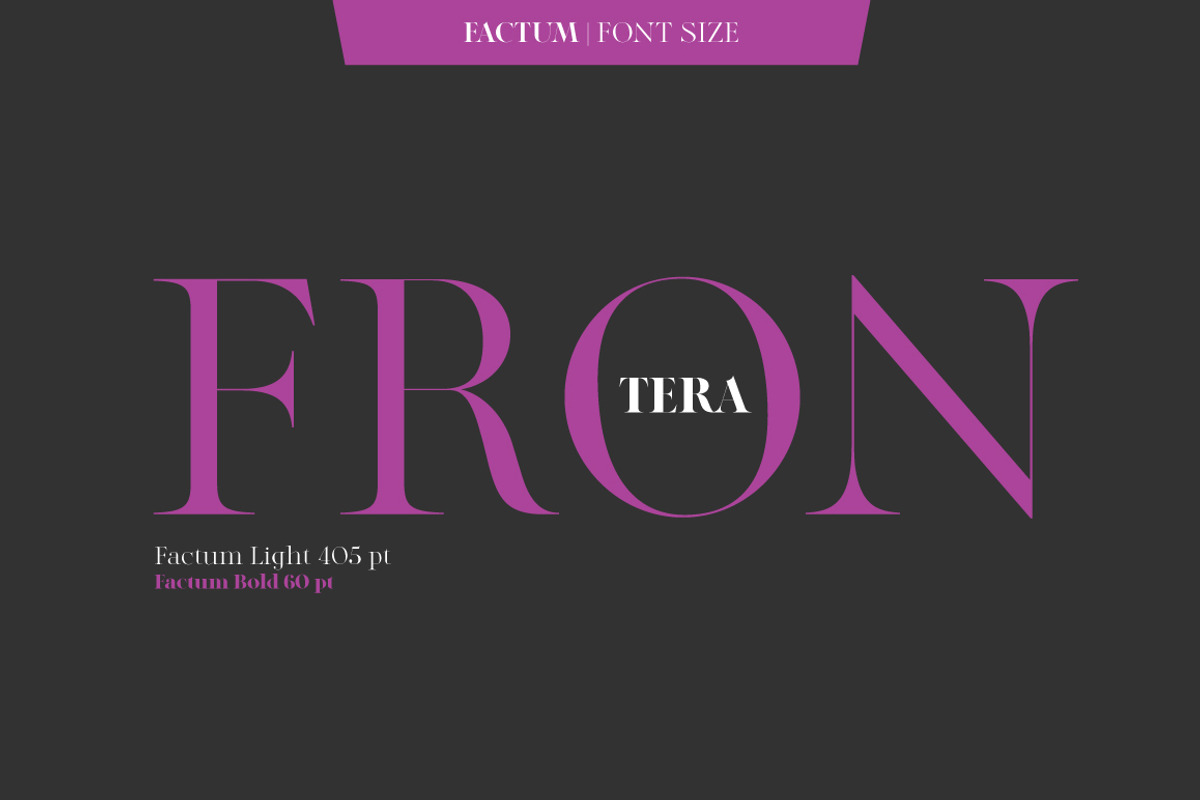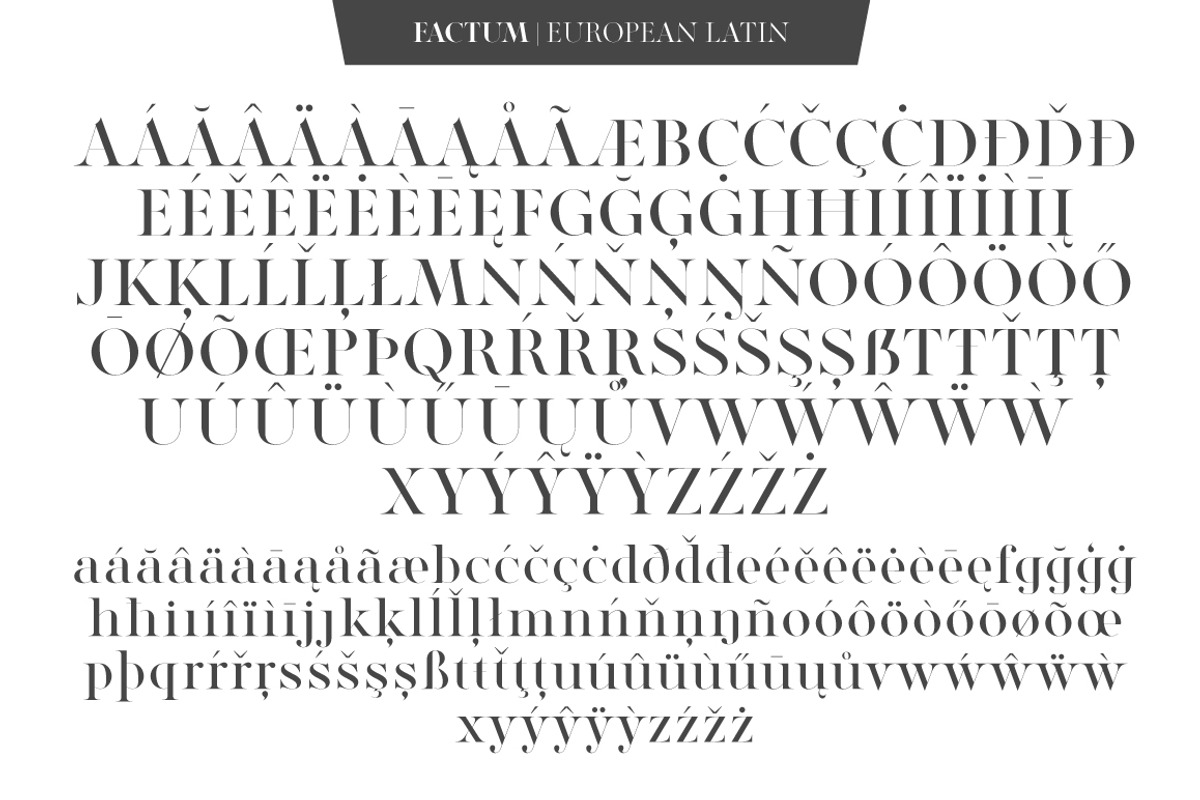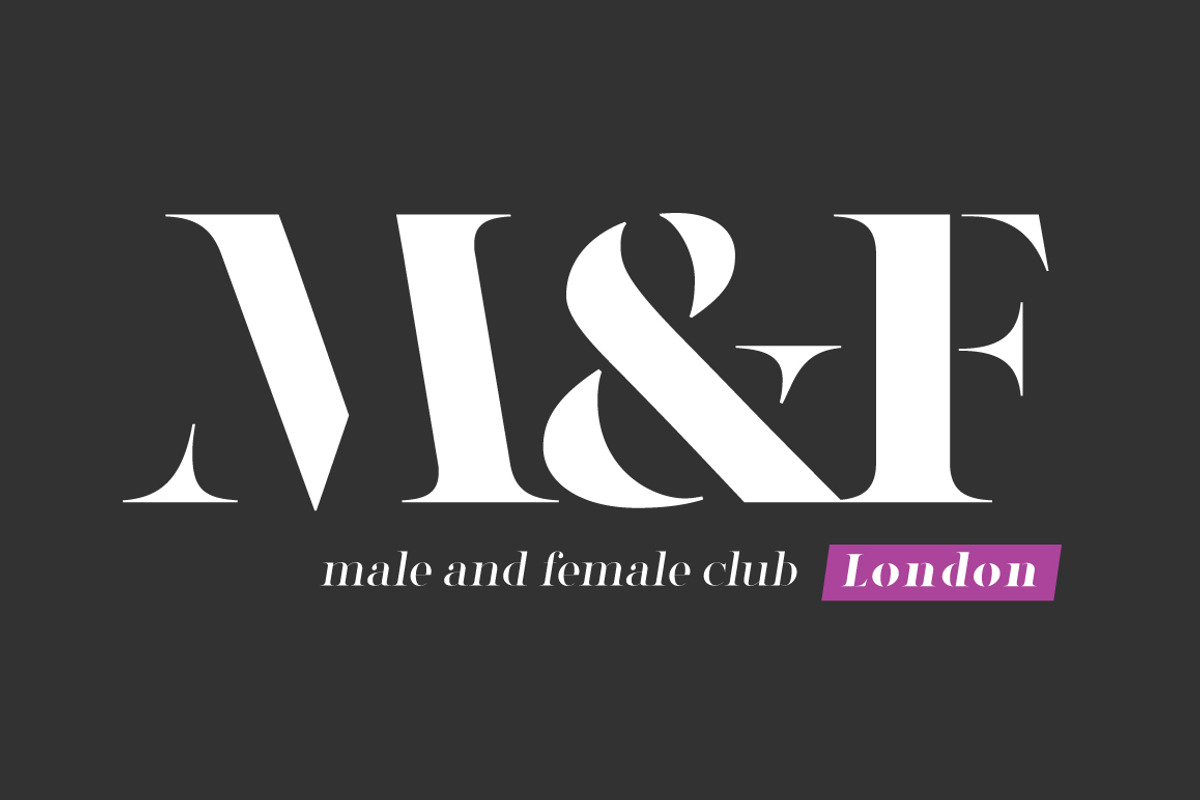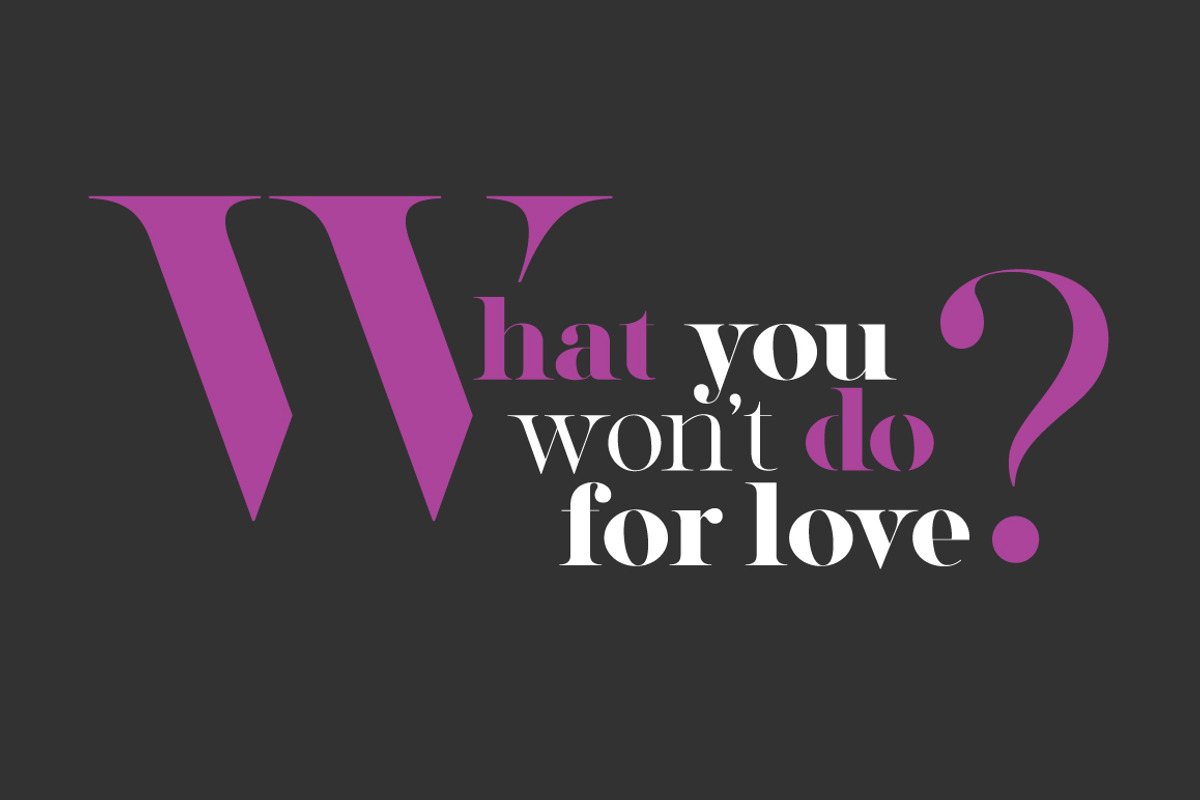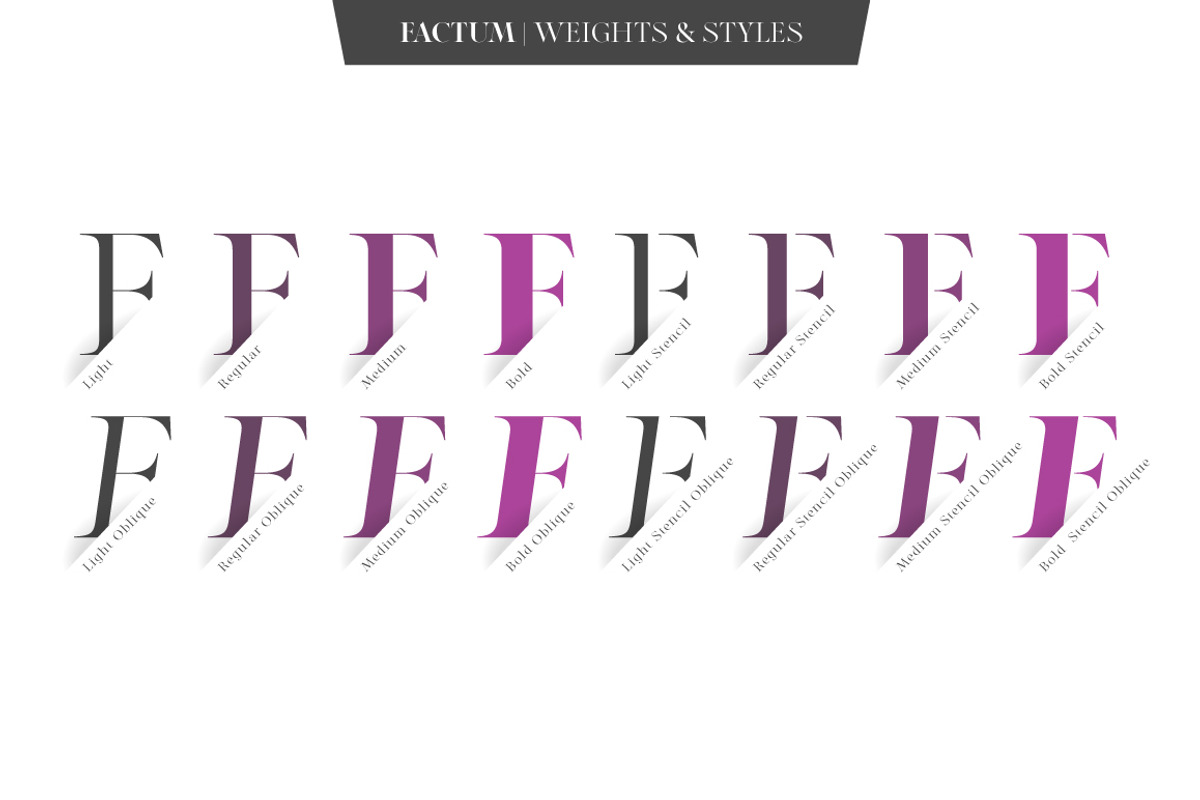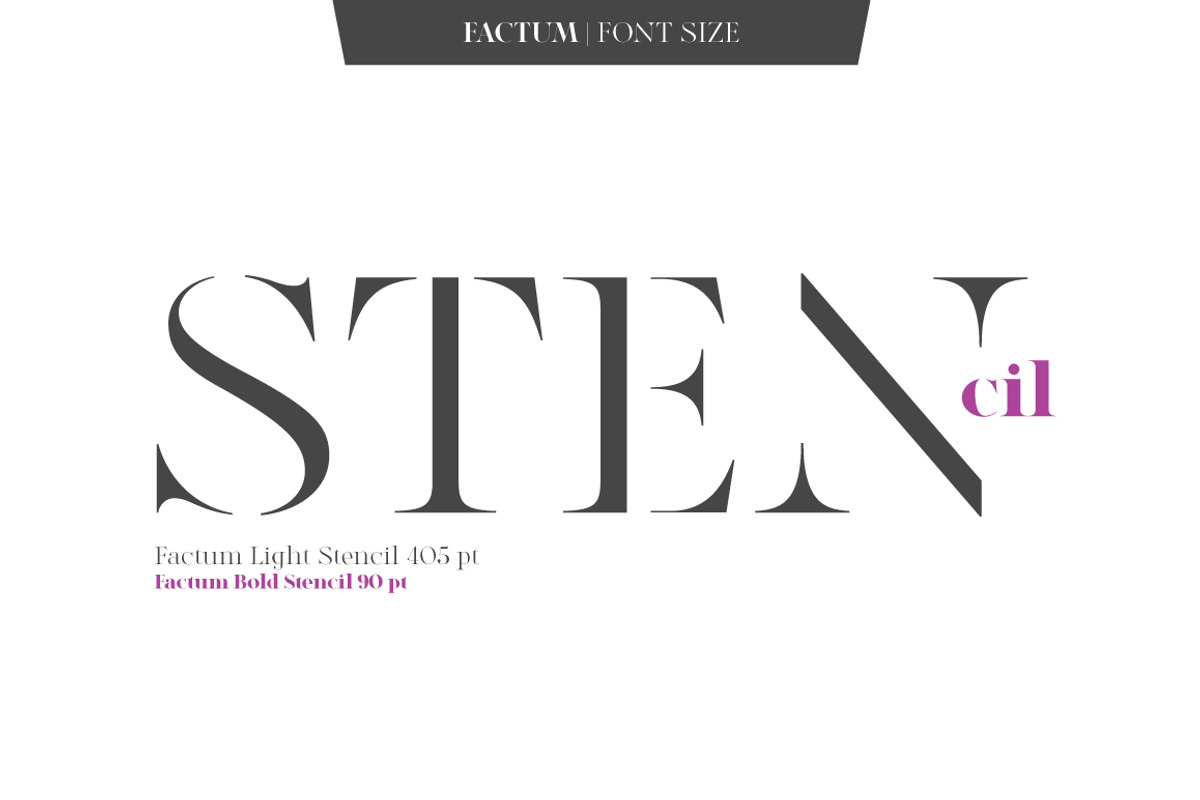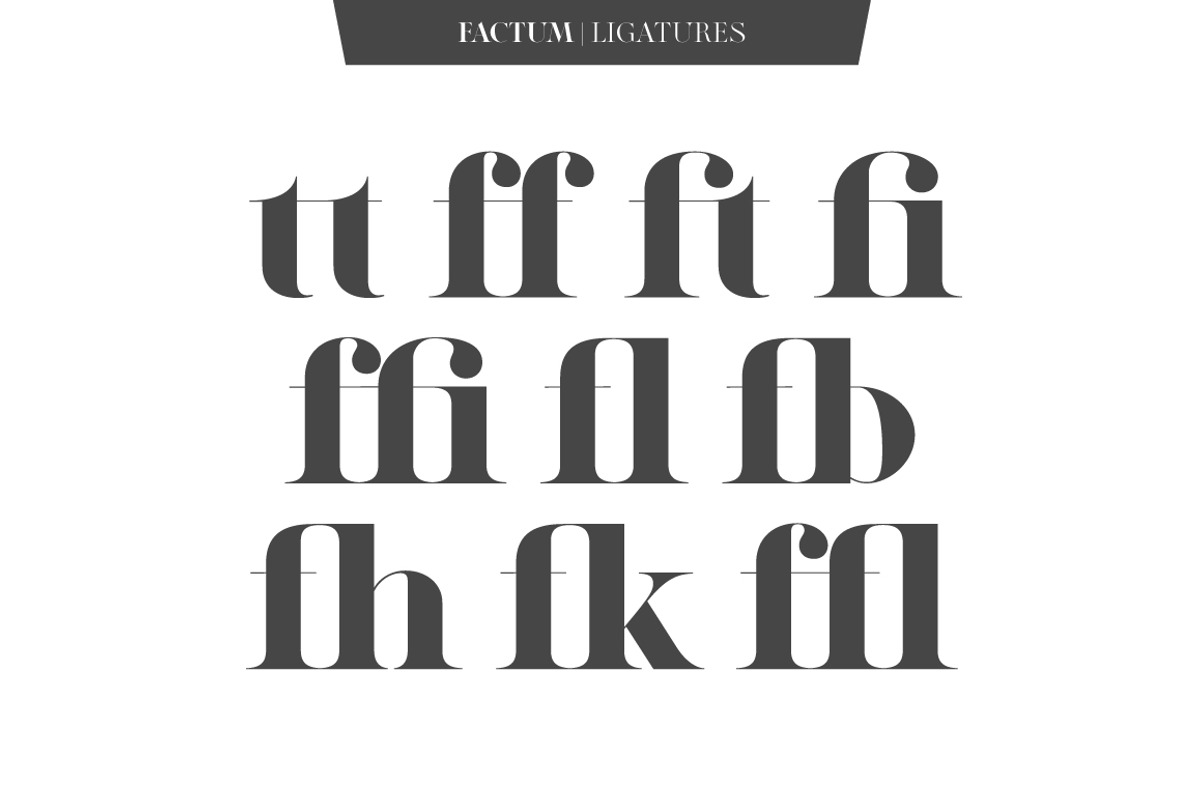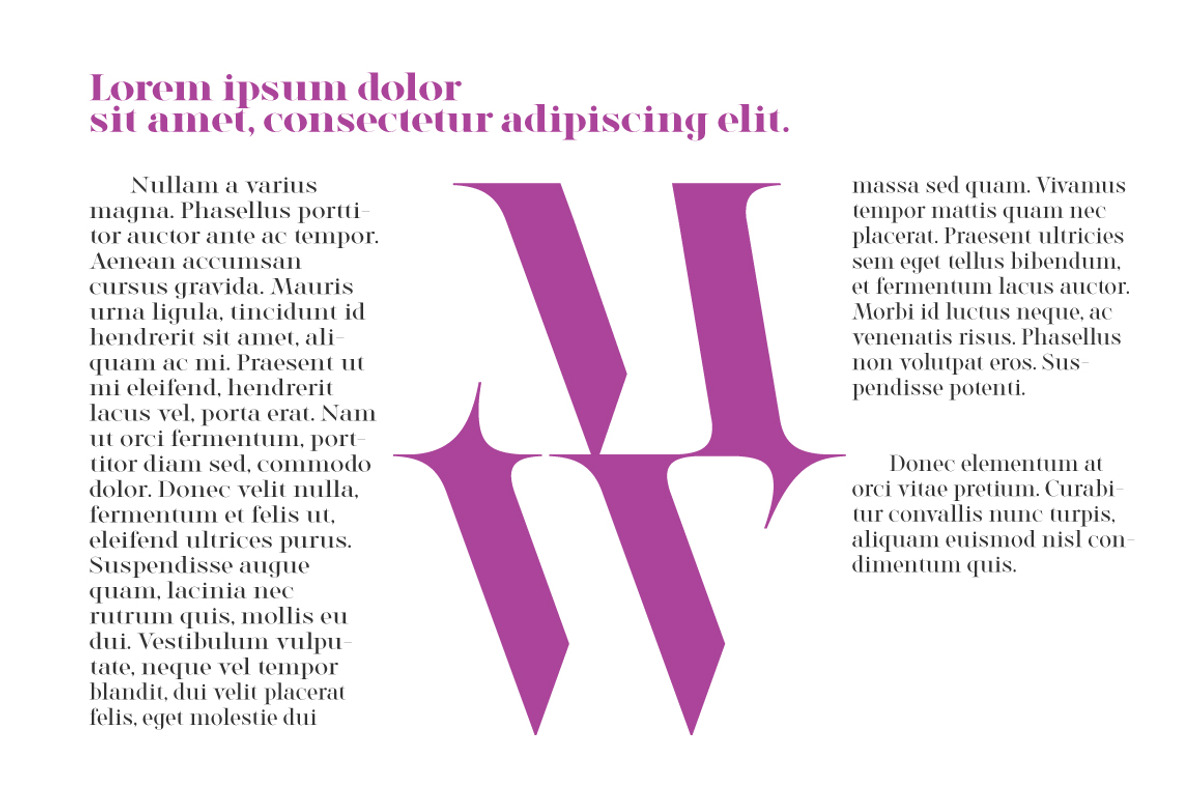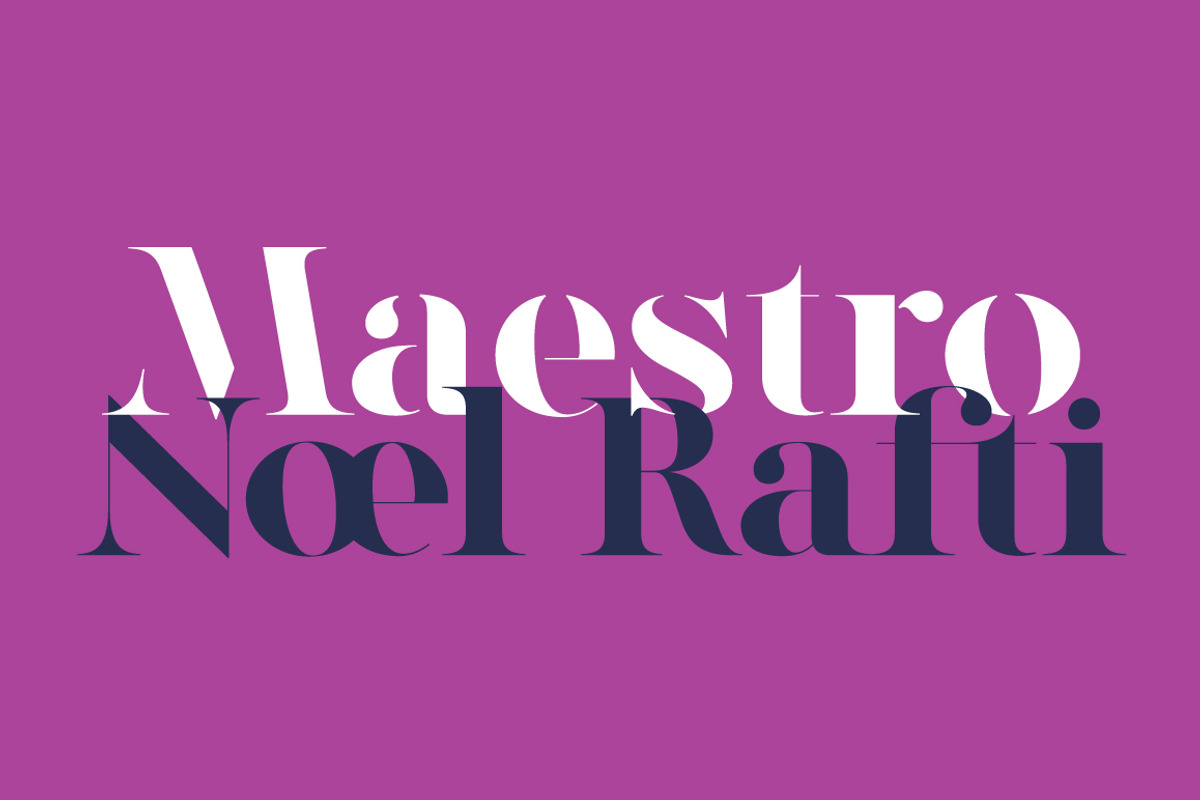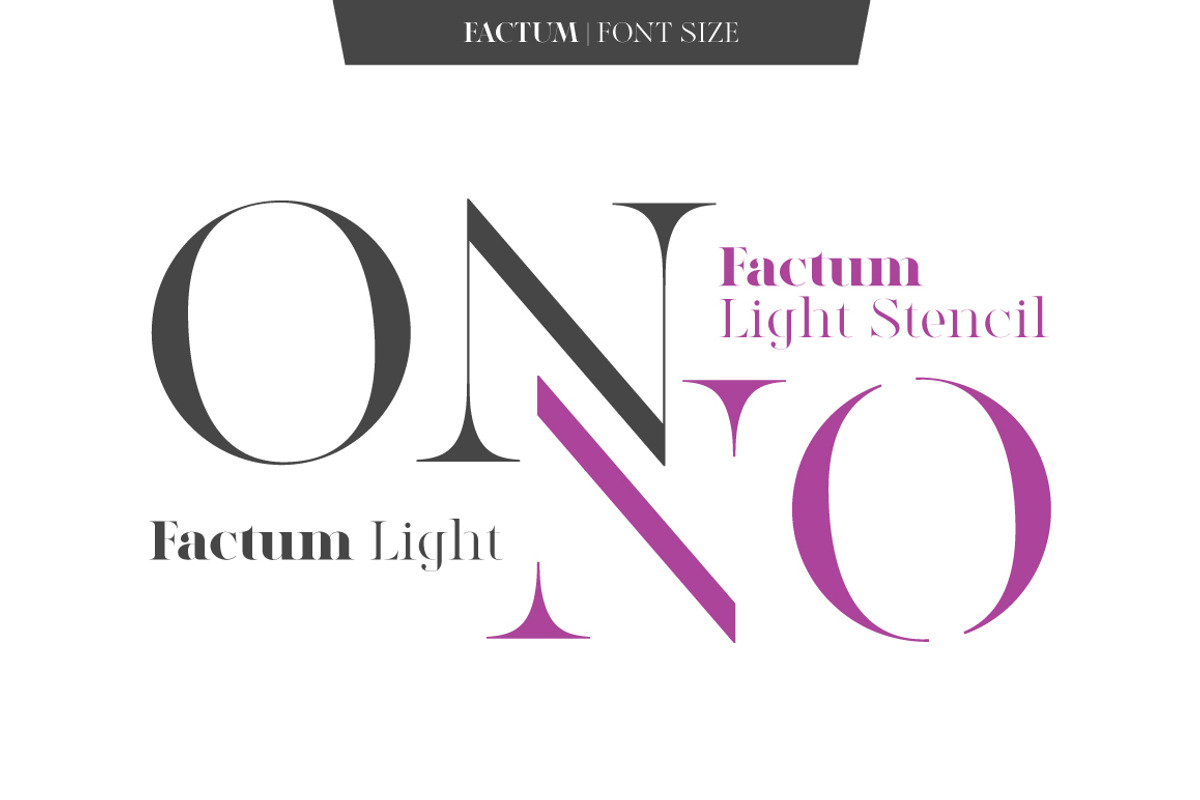
Factum font family
Factum is a classical style serif typeface that sets the mood and evokes emotions before you read the text. It consists of 16 fonts. Interchanging thick and thin lines, especially in Medium and Bold styles, creates an elegant silhouette and a rhythm in title sheet, cover art or poster. Yet Light and Regular styles look great in large type as well as headlines. Another speciality of the font family is Stencil styles that help you play around your typography and logotypes.
Rich heritage and cultural experience behind the classical design make Factum font perfect for texts and messages connected to glamour, fashion, arts, literature, architecture, science, education, travelling, fine dining, cosmetics, beauty and etc.
Timeless pattern and variety of weights and styles will make you use the font family again and again in different projects: creating logo, articles in magazines, branding, wedding invitations, quotes, posters, advertisements, monograms and many more.
Character set of each font includes all European Latin-based glyphs, numbers, punctuation and OpenType features like standard ligatures, discretionary ligatures and fractions.